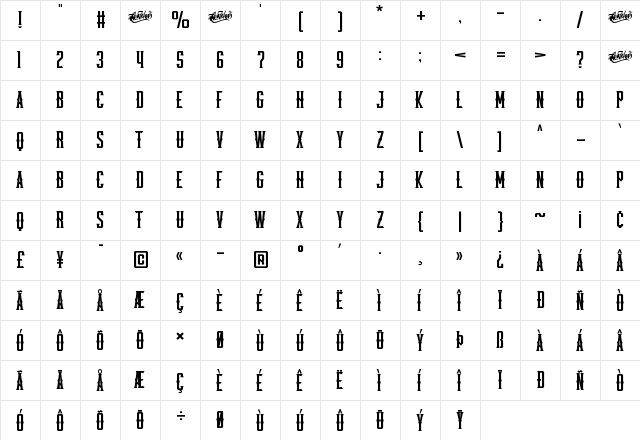
Pineforest Display Regular
Design Context for Pineforest Display Typeface
Pineforest Display brings ornamental detail and strong personality to headlines and identities, where visual impact matters more than quiet functionality.
Font Pairing: Pair with a clean neutral sans-serif for body copy to let Pineforest Display's character lead without overwhelming the composition.
Pro Tip: Treat Pineforest Display as the centrepiece of your typographic hierarchy. One strong heading set in a decorative face can carry an entire layout.